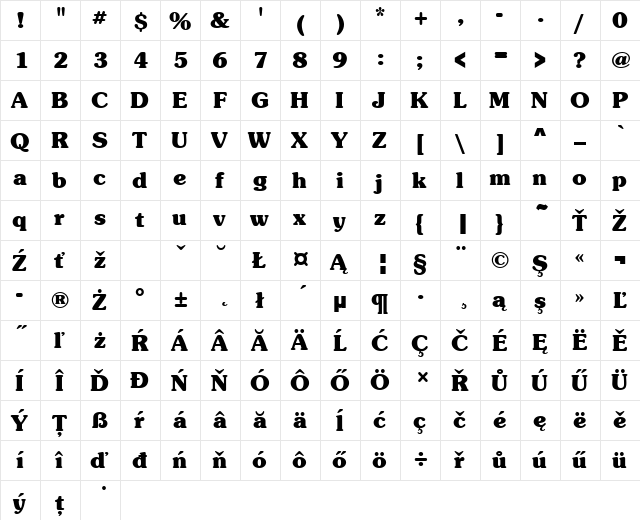
SouvenirItcTEEBol Regular Font Preview
SouvenirItcTEEBol Regular
SouvenirItcTEEBol Regular Font Details
Design Context for SouvenirItcTEEBol Typeface
SouvenirItcTEEBol offers clean, dependable letterforms without strong stylistic allegiance, making it a practical choice for designers who need flexibility.